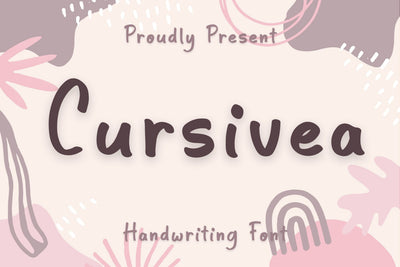
Cursivea Handwriting Font
Welcome to the delightful realm of Cursivea Handwriting Font, where cuteness and charm collide! With its playful loops and endearing swirls, this typeface is a heartwarming hug for your eyes. Every letter dances with joy, spreading smiles and sprinkling magic into your designs. Whether it's crafting adorable greeting cards, writing love notes, or adding a touch of sweetness to your projects, Cursivea is your ticket to a world of lovable expressions. Embrace the cuteness overload and let Cursivea Handwriting Font add a sprinkle of happiness to your creative journey! ✨